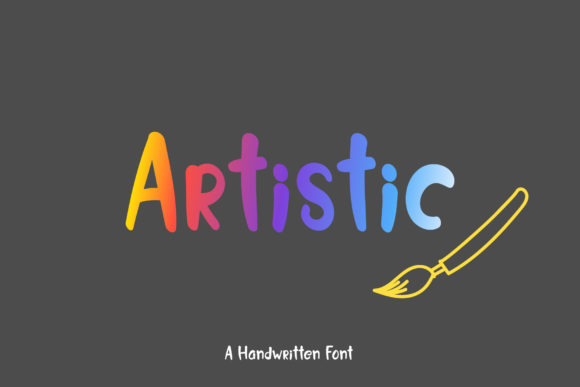
The Artistic Font: A Sweet and Playful Addition to Your Design Projects
I’ll never forget the time I was working on a design project for a client who wanted a font that was both playful and sophisticated. I had spent hours scouring the internet for the perfect font, but nothing seemed quite right. That’s when I stumbled upon the Artistic font, a sweet and playful handwritten font created with the help of a brush pen. It was love at first sight! ✨
The Artistic font has a quirky, relaxed feel that’s perfect for a wide range of design projects. In this article, I’ll share my honest review of the font, provide a practical guide on how to use it, and explore some similar fonts you might enjoy.
My Honest Review of Artistic Font
- ✨ The Artistic font has a unique, hand-crafted feel that’s perfect for designs that need a personal touch.
- ✅ The font is highly legible, even at small sizes.
- 💫 The brush pen texture gives the font a organic, artistic feel.
- 🎨 The font comes with a range of OpenType features, including glyphs and stylistic alternates.
While the Artistic font is an amazing addition to any design project, there are a few quirks to be aware of. 🤔
- ⚠️ The font can be a bit tricky to pair with other fonts, so be sure to experiment with different combinations.
- ⚠️ Some of the glyphs and stylistic alternates can be a bit finicky, so be sure to test them thoroughly.
The Story Behind Artistic Font
The Artistic font was designed by a talented typographer who wanted to create a font that captured the feeling of working with a brush pen. The designer spent hours experimenting with different brush strokes and techniques to create a unique, hand-crafted feel. The result is a font that’s both playful and sophisticated, perfect for a wide range of design projects.
Q: What is the Artistic font?
A: The Artistic font is a sweet, playful handwritten font created with the help of a brush pen.
Q: What kind of projects is the Artistic font suitable for?
A: The Artistic font is perfect for a wide range of design projects, including branding, packaging, and marketing materials.
Q: Is the Artistic font easy to read?
A: Yes, the Artistic font is highly legible, even at small sizes.